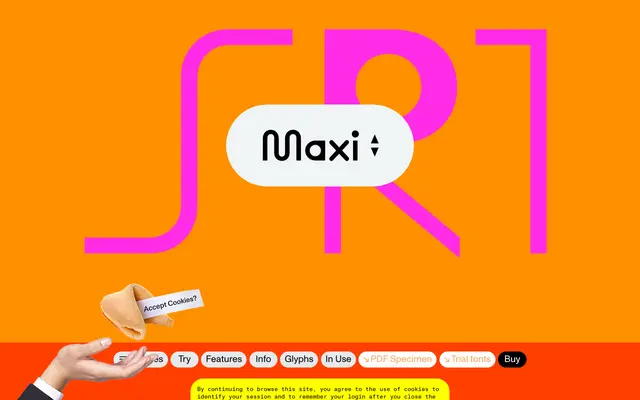
ABC Maxi
A variable type system in four subfamilies — Round, Round Mono, Sharp and Sharp Mono — drawing on mid-century Swiss geometry with angular lines and spaghetti-like movement.
Designed at Dinamo by Johannes Breyer and Fabian Harb with Andree Paat, ABC Maxi references the underlying skeleton of Josef Müller-Brockmann's 1958 CWS wordmark and the 1981 Swatch logo, reinterpreting Swiss International Style forms through a variable axis that runs from Hairline to Black. Rather than a conventional italic, the family offers two stylistic registers — Round and Sharp — each available in proportional and monospaced versions, giving users four distinct subfamilies. The variable font technology allows subtle shape manipulation that shifts the overall tone, making it equally suited to branding, editorial and screen work.
Rooted in mid-century Swiss International Style geometry with a warm, engineered character; the sharp and round variants, alongside monospaced subfamilies, place it firmly in the geometric sans tradition with an expressive, variable-driven edge.